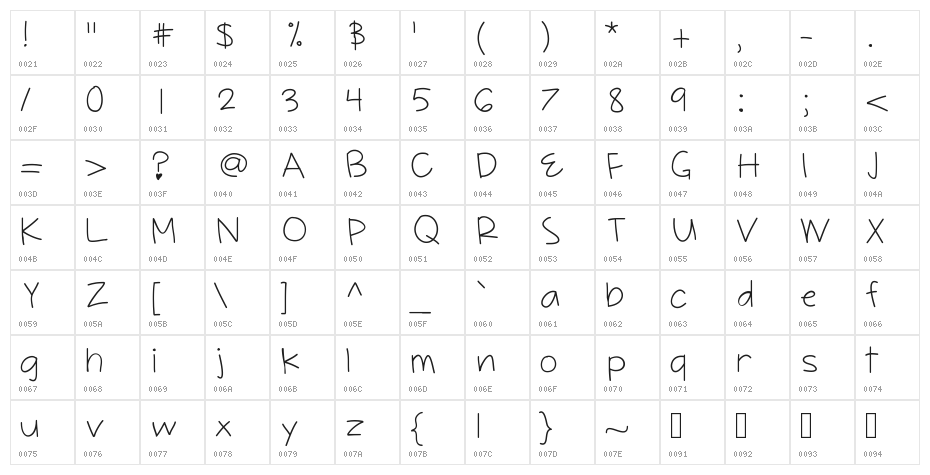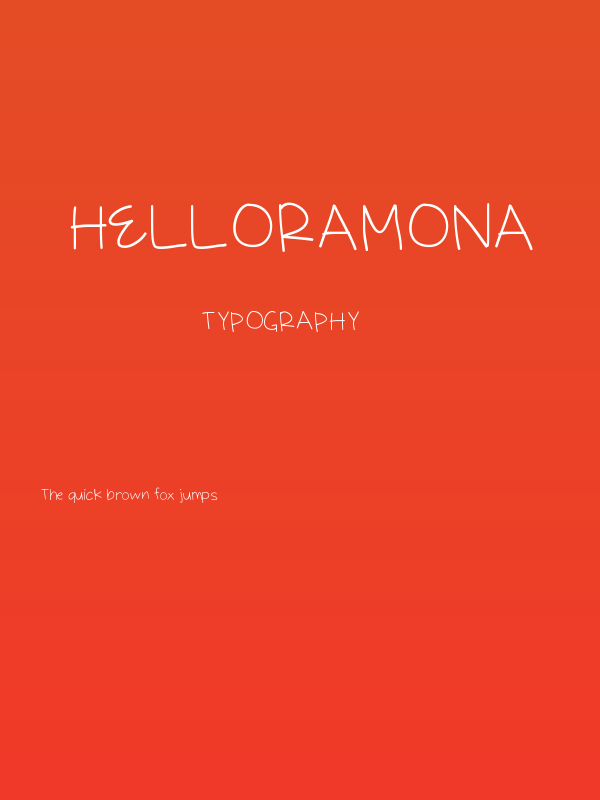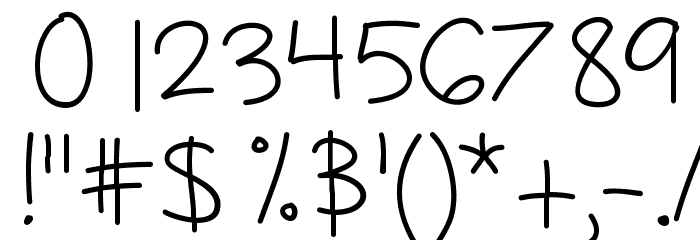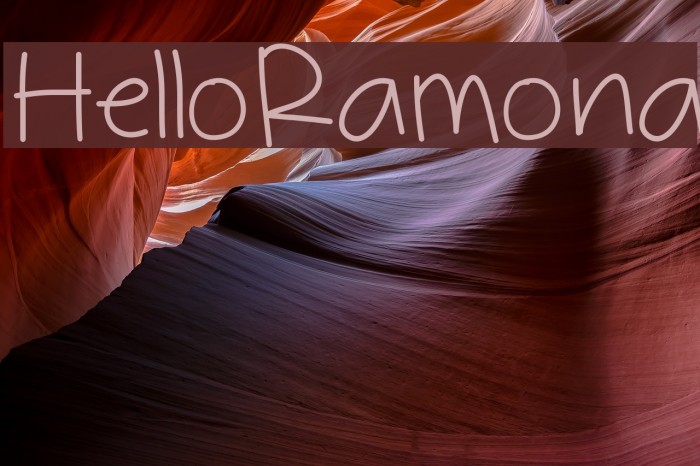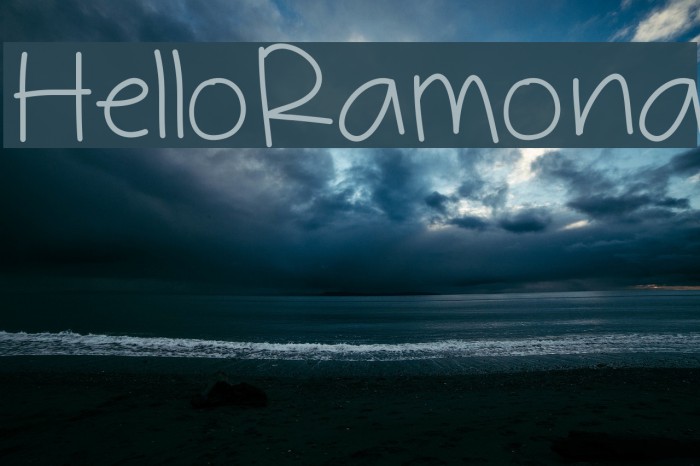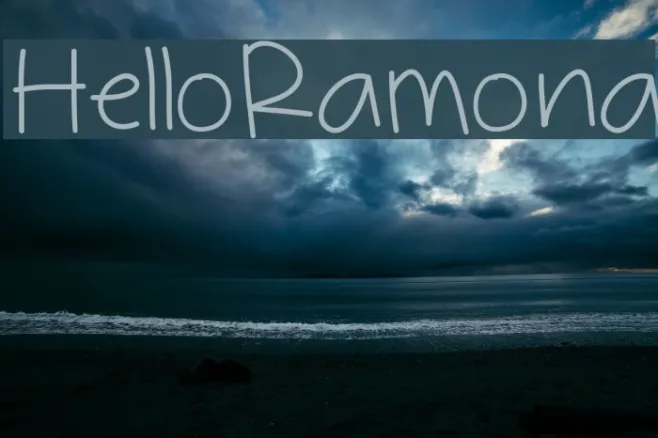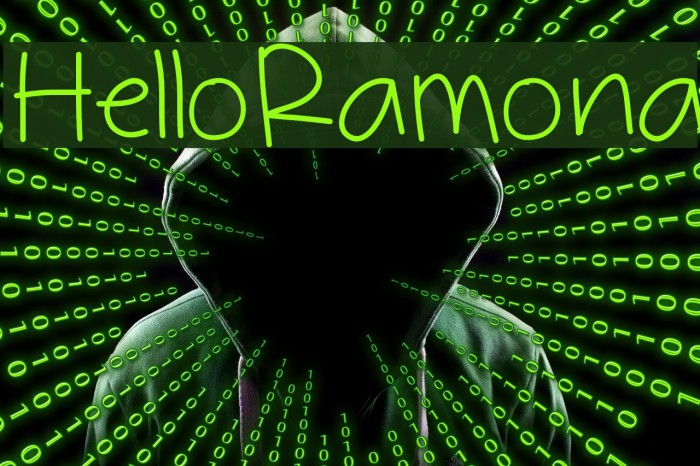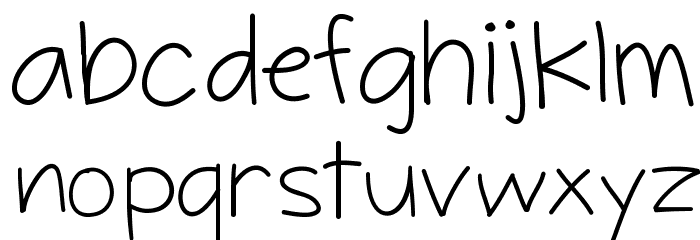
HelloRamona Font
HelloRamona Description
This playful and casual font features a handwritten style with a friendly and approachable appearance. The characters are slightly irregular, adding a personal touch that mimics natural handwriting. The strokes are consistent in weight, providing a clean and uniform look. The rounded edges and smooth curves contribute to its informal and relaxed vibe, making it ideal for projects that require a personal or whimsical touch. The font maintains good legibility across different sizes, ensuring readability while retaining its unique character.
| Use Case | Headlines, Informal text, Personal projects |
| Proposed Projects | Ideal for greeting cards, children's books, personal blogs, and informal branding. |